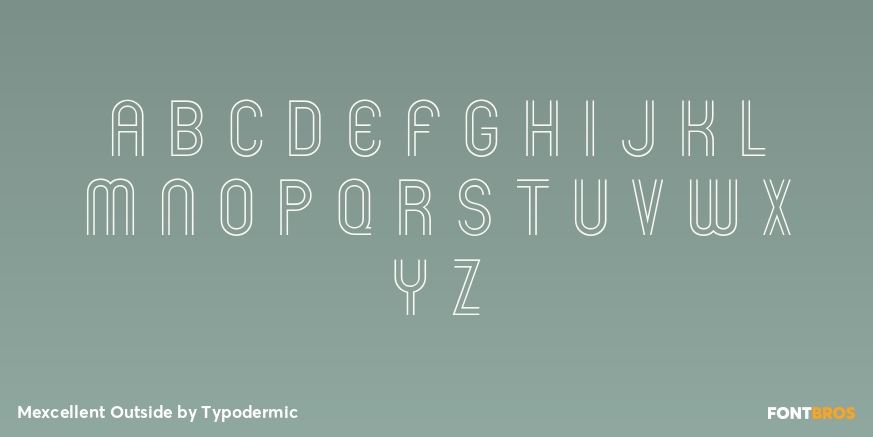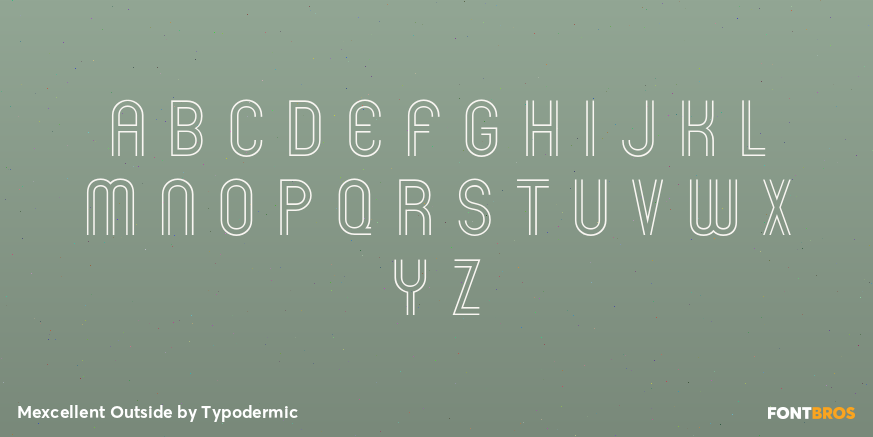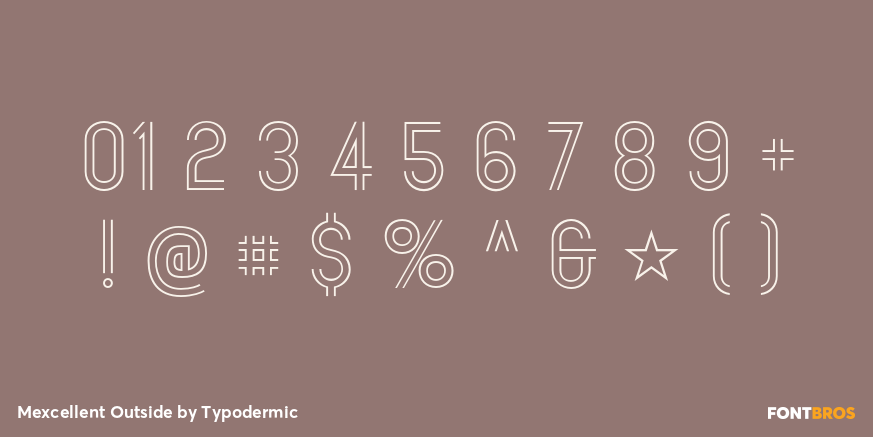
Mexcellent Outside
Mexcellent Outside carries the two outer lines that flank Middle throughout each character. On its own it produces an open double-line version of the design; registered over Back and Middle, it completes the trilinear face while leaving the central stripe available for a separate color, material, or motion treatment.
Use Outside for airy display headlines, window vinyl, and projected overlays, or as the boundary layer in sports identities, tournament graphics, product colorways, and stacked signage. Keep it large enough for the paired lines to remain distinct; over busy footage or textured materials, place Back beneath it so the letter silhouette does not disappear.
Mexcellent Outside by Typodermic